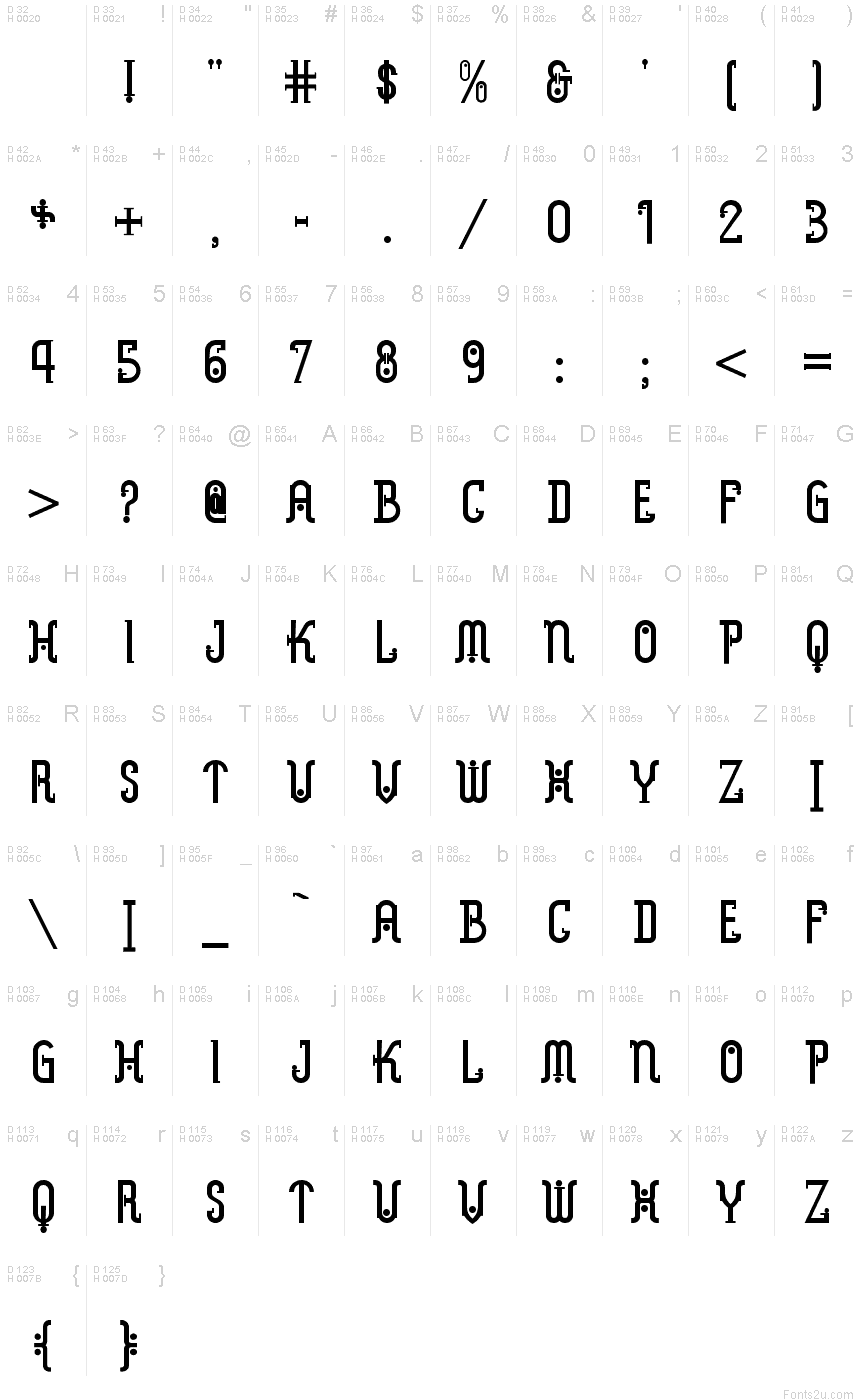
MetropolisNF
Metropolis NF font by Nick Curtis is a free retro display font with tall, geometric letters shaped by smooth arches, straight-sided cuts, and a few sharp interior notches. The forms feel drawn from classic metro signage, but with a decorative twist that keeps the alphabet distinctive across the whole word.
Metropolis NF works well for poster titles, logo marks, event flyers, signage concepts, and album art where a strong lettering style matters. Its narrow structure and built-in architectural rhythm give layout pieces a clear graphic line without needing extra ornament.